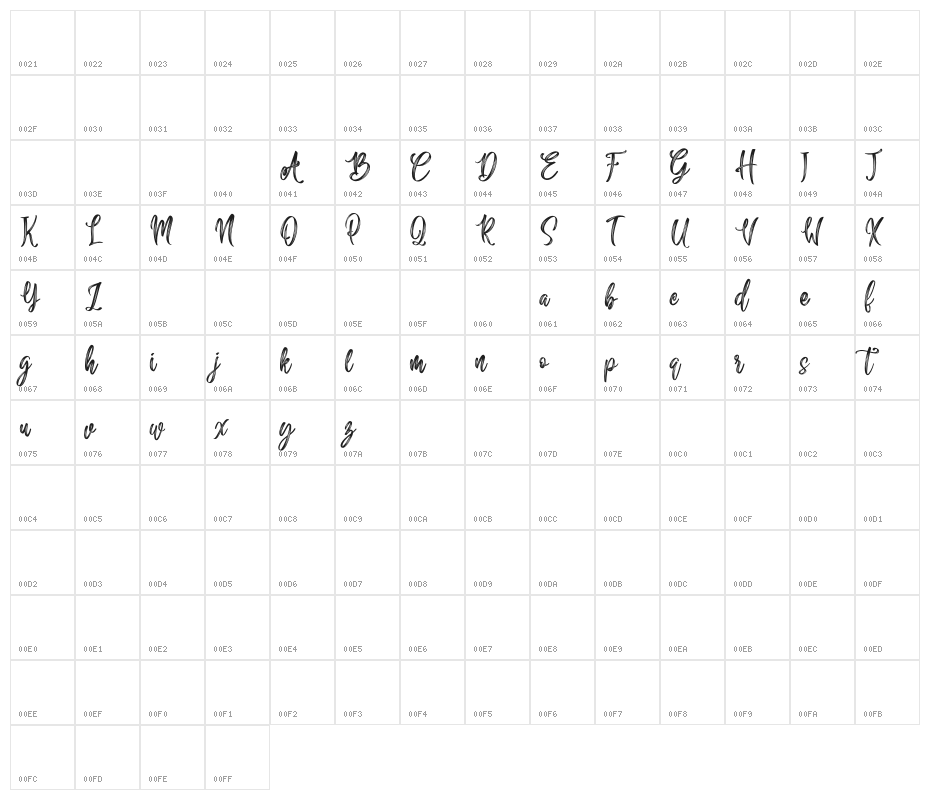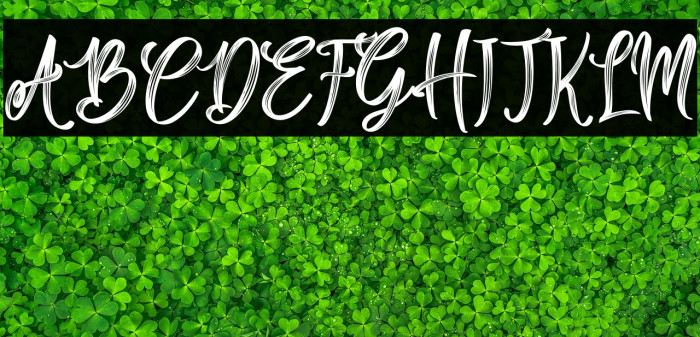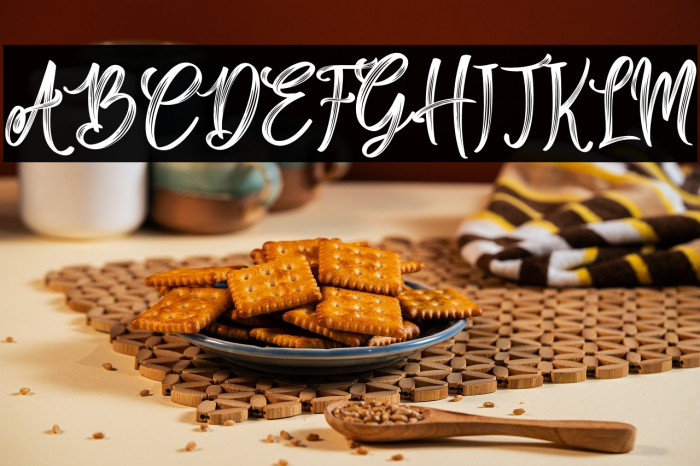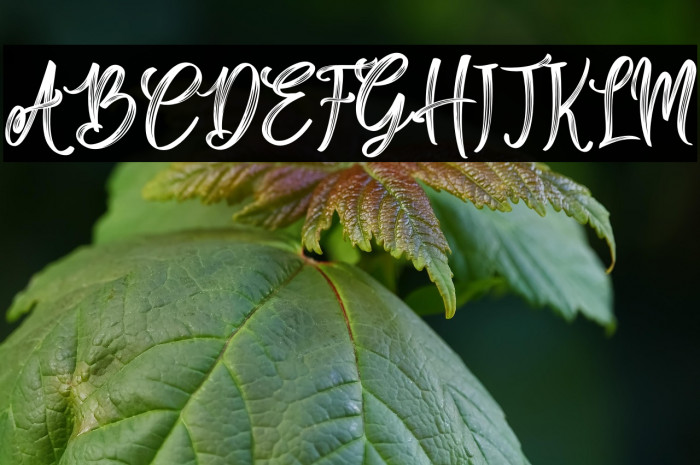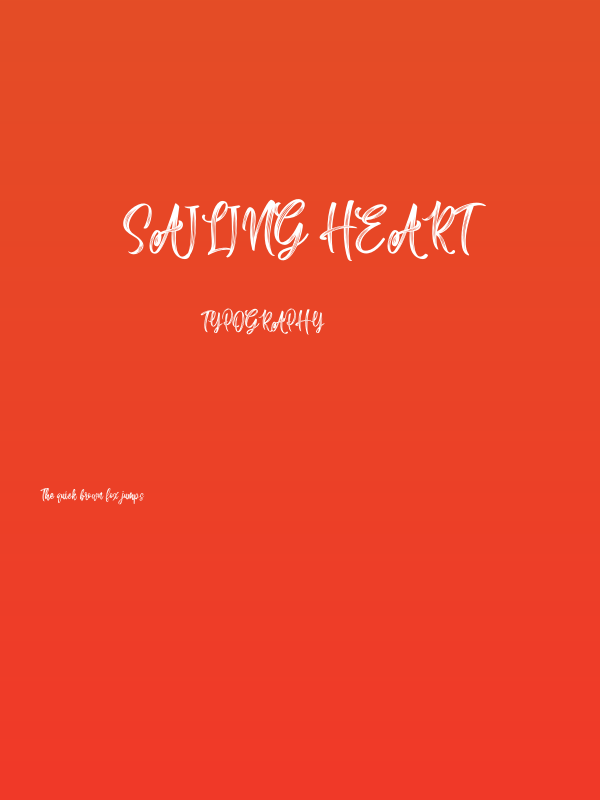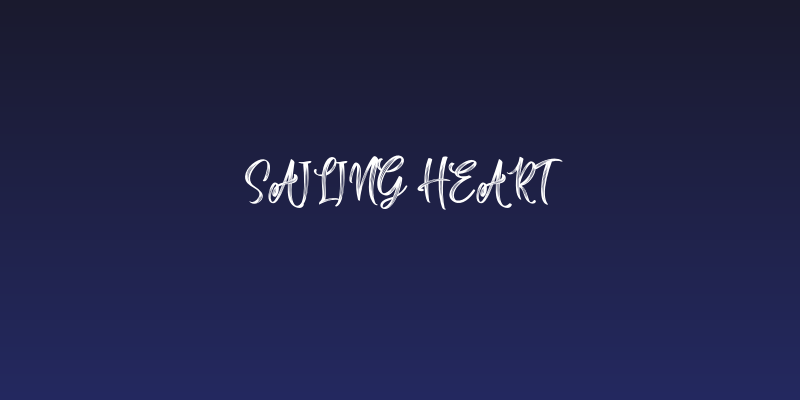
Sailing Heart Font
Sailing Heart Description
This font features an elegant and flowing script style, characterized by its smooth, cursive strokes and artistic flair. The uppercase letters are bold and dynamic, with sweeping curves and flourishes that give them a sense of movement and grace. The lowercase letters maintain the same fluidity, offering a harmonious blend of style and readability. The font's design is reminiscent of calligraphy, with a modern twist that makes it suitable for various creative applications. Its unique character shapes and artistic details make it stand out, providing a sophisticated and stylish appearance.